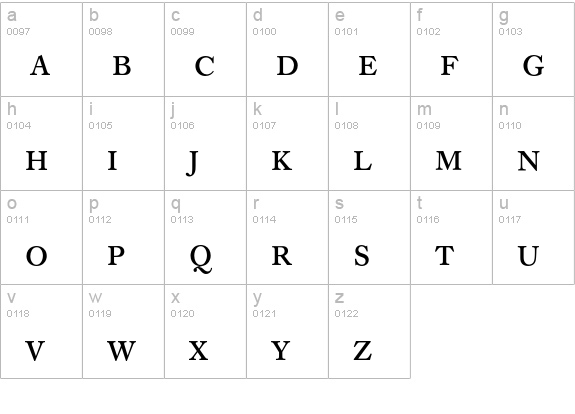
Caslon Buch Expert BQ Regular Font Details
Caslon Buch Expert BQ Regular is the standard, neutral variant in the Caslon typeface family \xE2\x80\x94 well suited to general body text, paragraphs, and standard typographic work.
Caslon Buch Expert BQ Regular font is a classic and elegant typeface that exudes sophistication and timelessness. With its clean lines and balanced proportions, this font is perfect for adding a touch of refined beauty to any design project. Whether used for print materials, websites, or branding, Caslon Buch Expert BQ Regular font offers a sense of tradition and grace. Best of all, this exquisite font is available for free download at FontsMarket.com. Simply visit the website to access this high-quality typeface and enhance your creative projects with the timeless appeal of Caslon Buch Expert BQ Regular font.